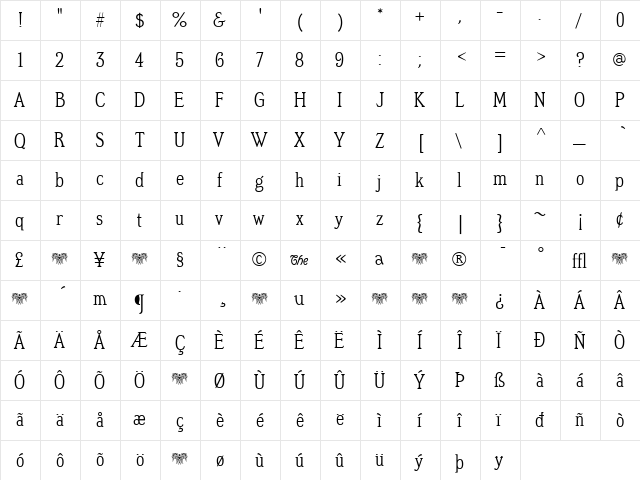
MeyerTwo Regular
Design Context for MeyerTwo Typeface
MeyerTwo takes a measured approach to typography — its balanced proportions and neutral character make it a reliable workhorse for both digital and print work.